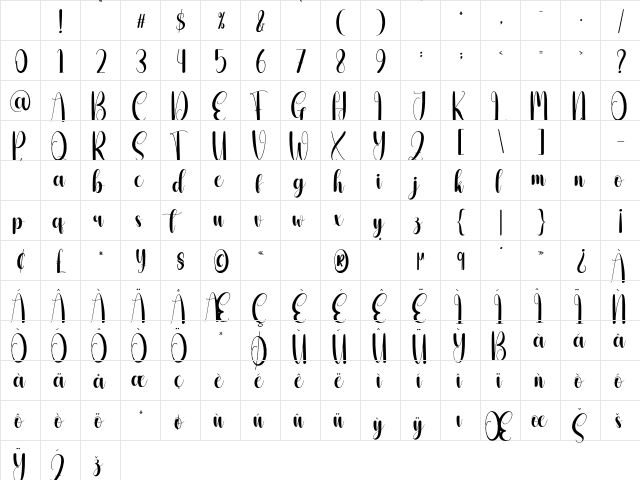
Complete Button Regular glyph index. Displaying only characters natively supported by Button Regular font.
Button is a composed and adaptable typeface that performs quietly and consistently across a wide range of design contexts.